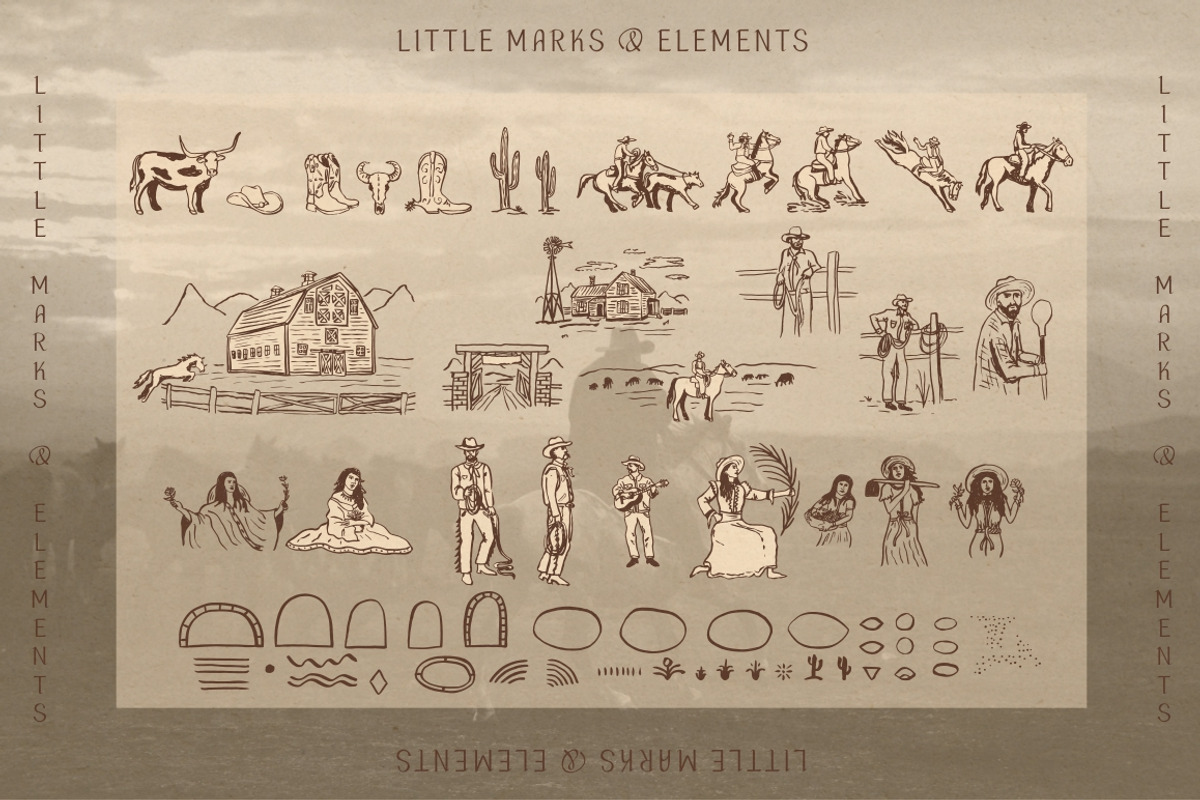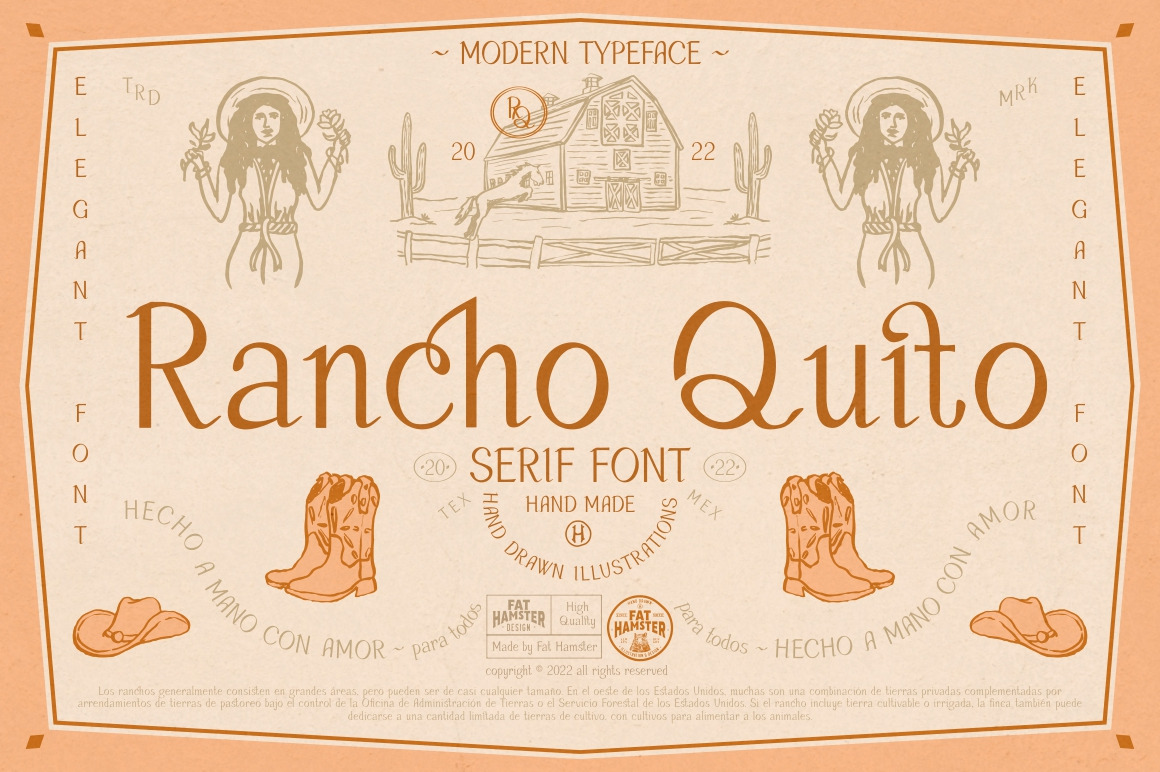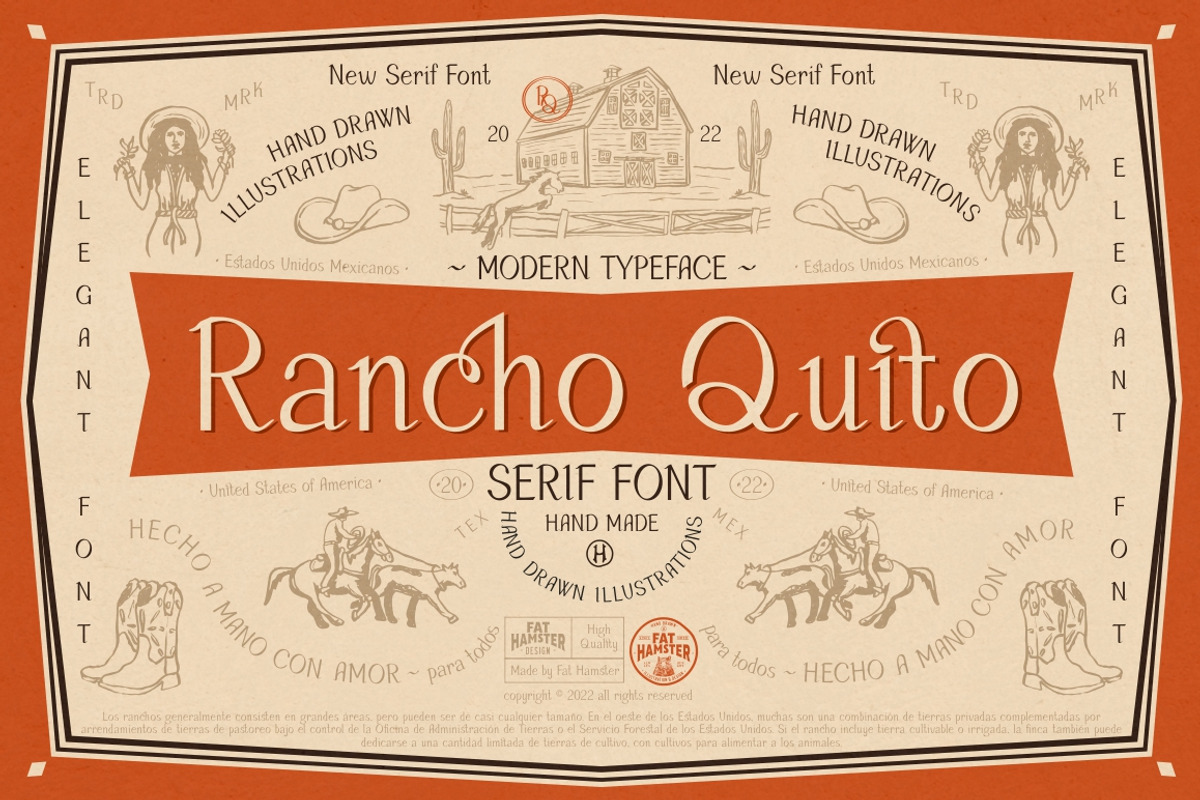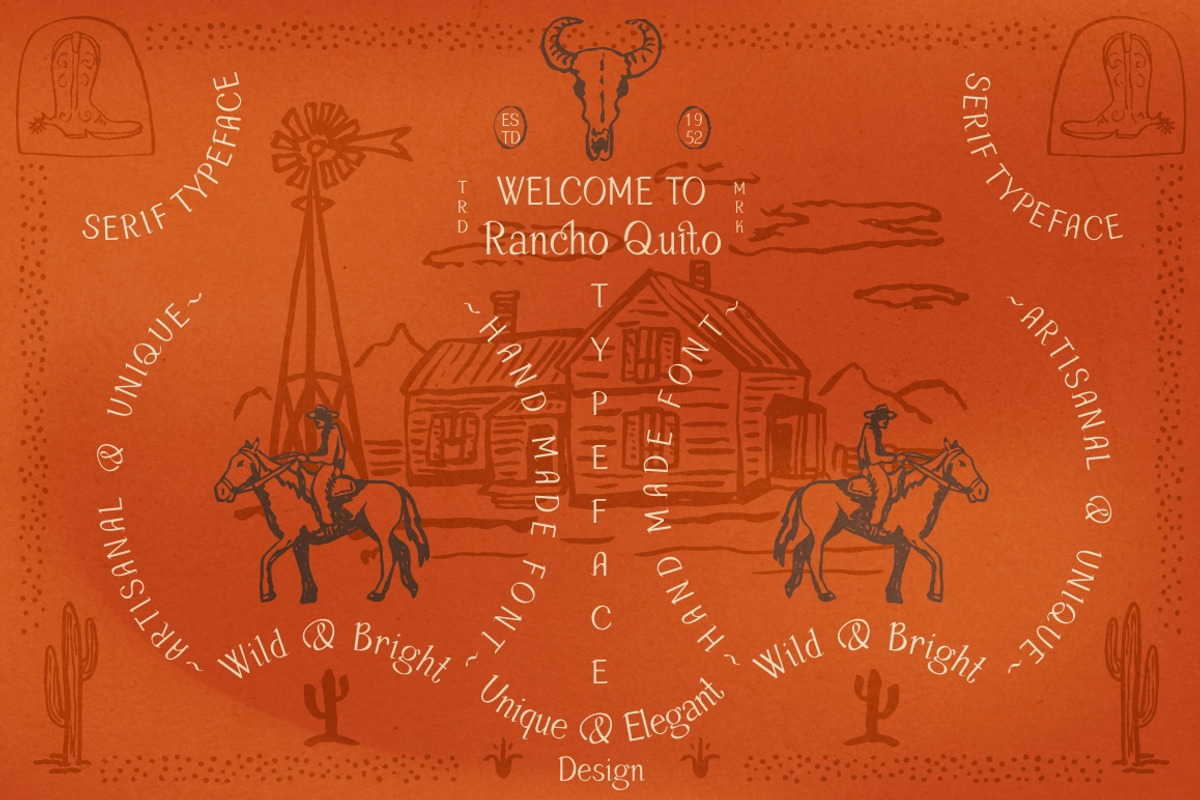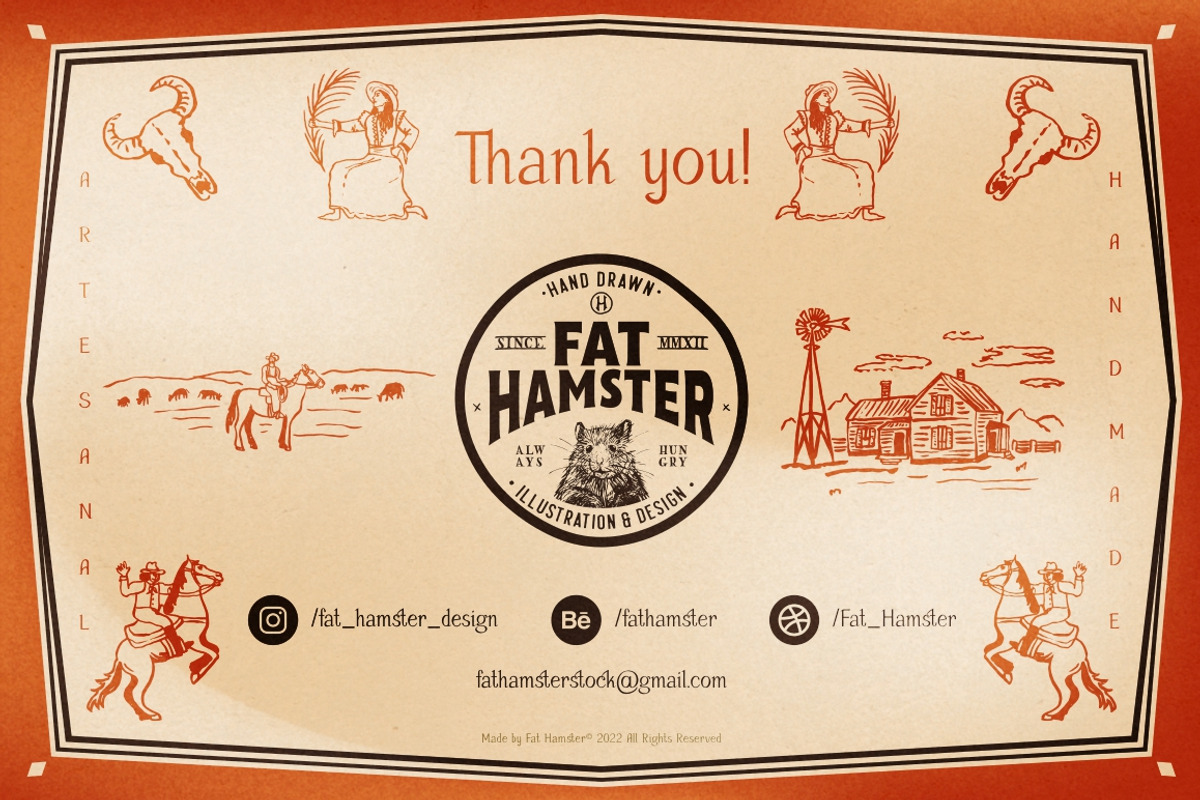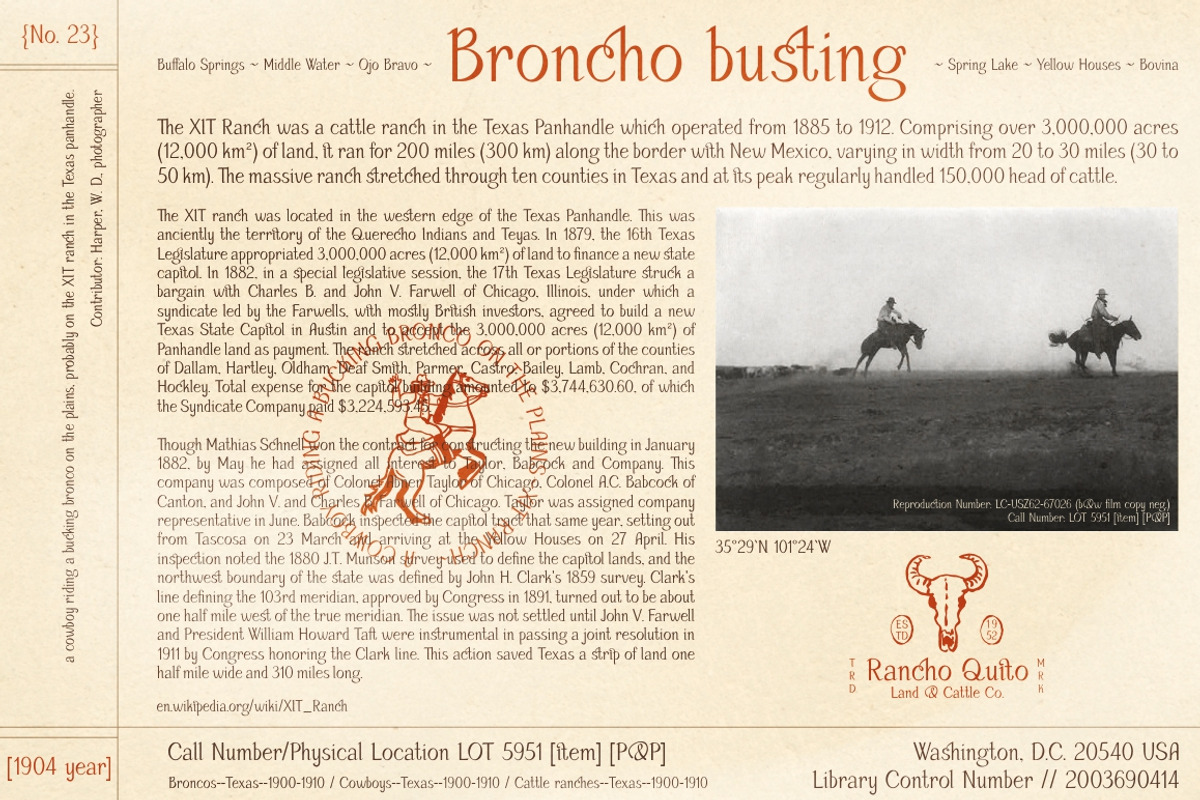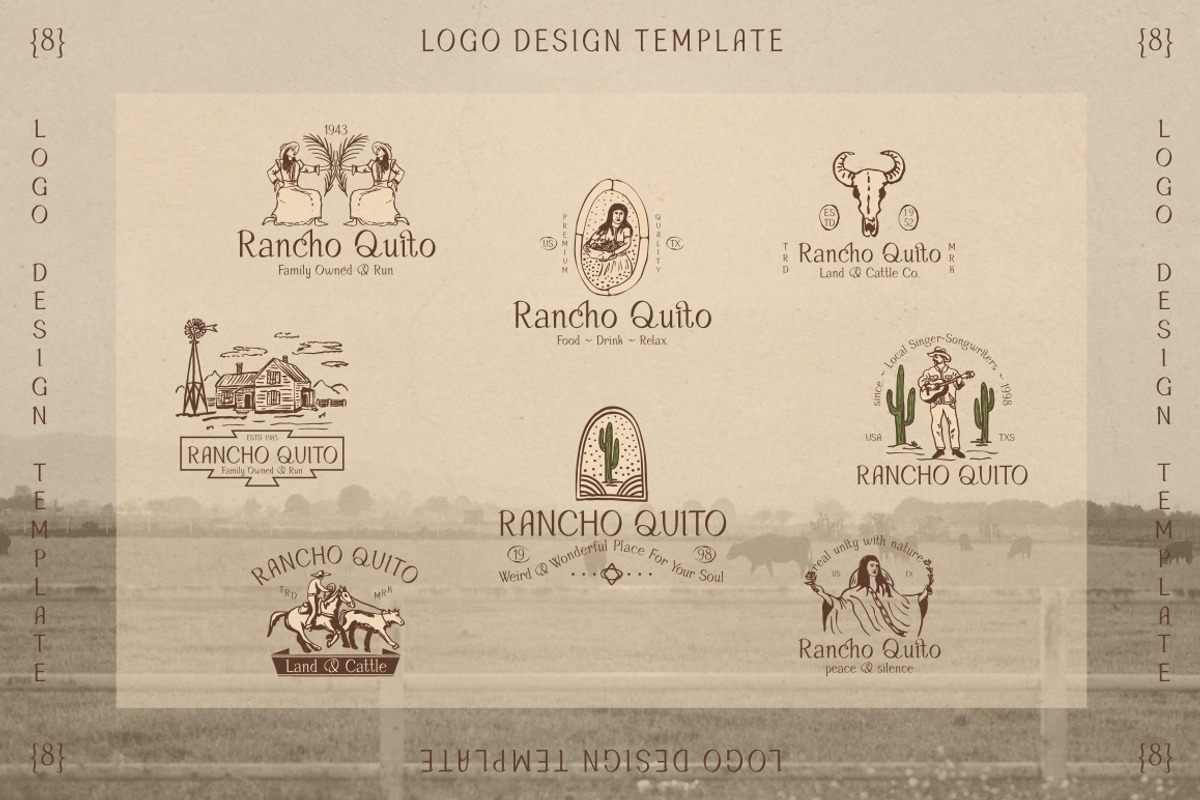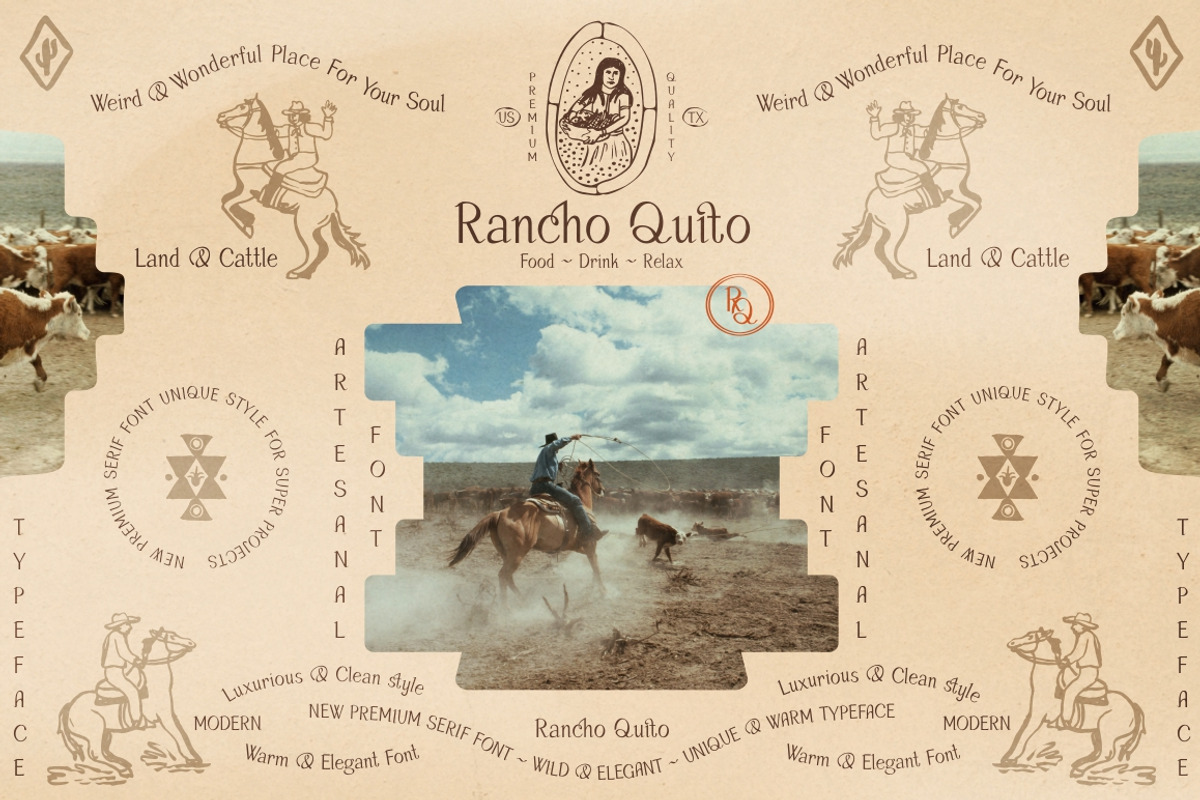
Rancho Quito elegant serif font
Rancho Quito - Modern and elegant font in warm southwestern style
Rancho Quito is a unique & stylish typeface inspired by southwestern & Mexican culture. Desert, country, old west vibes. Sleek and classy ligatures will add a special spirit to your fantastic projects. You can use Rancho Quito font for logo & branding, label & packaging design, heading, magazine and book covers, invitations and postcards, wedding stationery and pretty quotes.